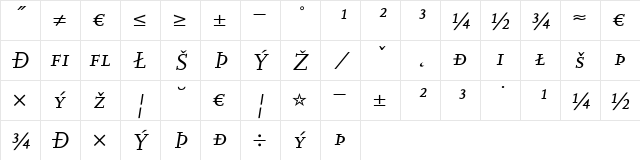
Scala Medium Italic Font Preview
Scala Medium Italic
Scala Medium Italic Font Details
| Style | Medium Italic |
| Foundry | Martin Majoor, . Published by FontShop International. FontFont Release |
Design Context for Scala Typeface
Scala takes a measured approach to typography — its balanced proportions and neutral character make it a reliable workhorse for both digital and print work. The dynamic lean of this cut emphasises speed and emphasis in any layout.